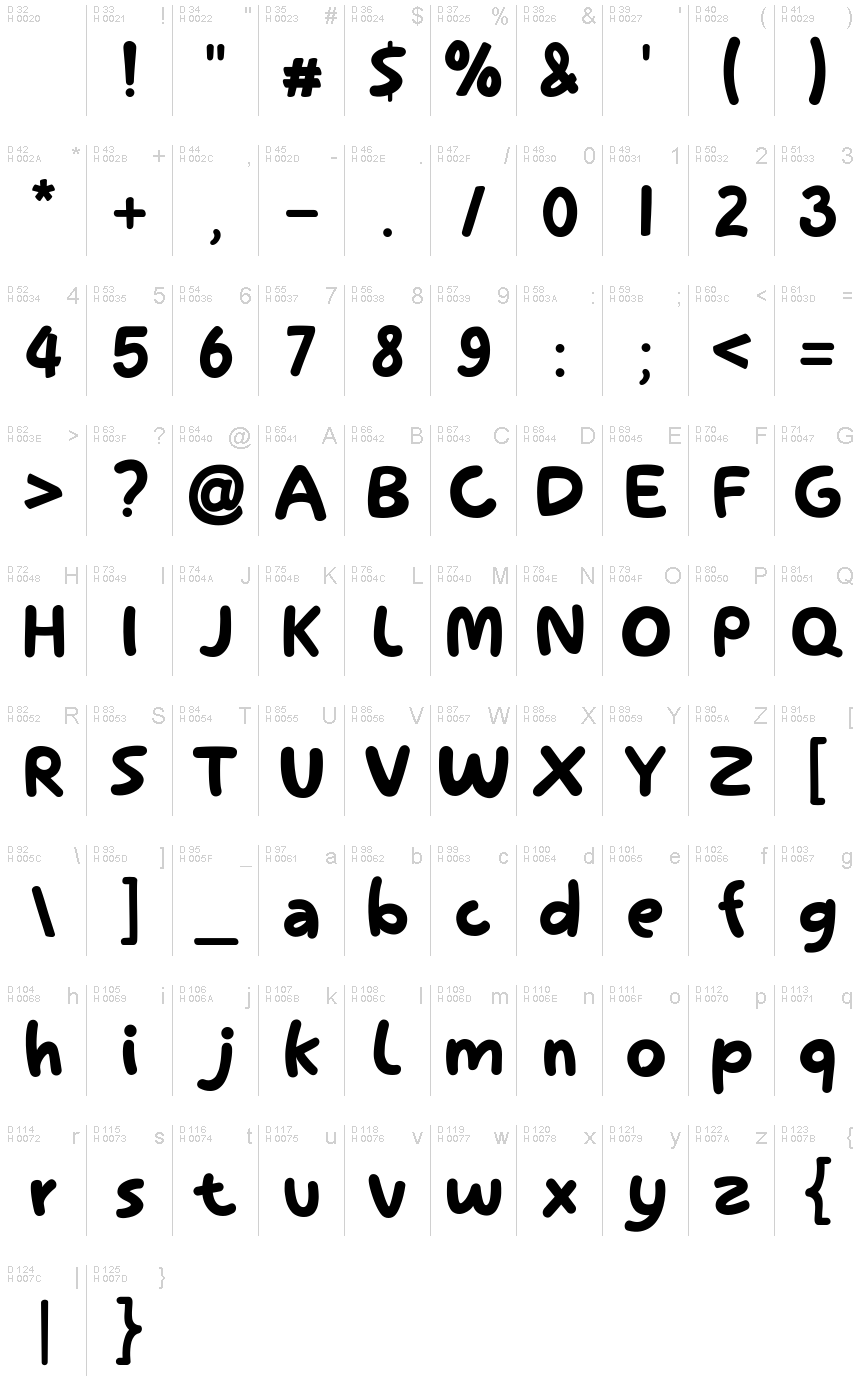
Kinder Child
Kinder Child, a playful and charming font designed by UI Creative, exudes a whimsical and youthful spirit. With its bold, cartoon-inspired strokes and a distinct sense of movement, this display font captivates the eye and evokes a cheerful, carefree atmosphere. The font's rounded, slightly irregular shapes and uneven letter spacing contribute to its endearing, handcrafted aesthetic, making it a delightful choice for projects targeting a young, vibrant audience.
The Kinder Child font lends itself beautifully to a variety of applications, from children's book covers and stationery to packaging design, advertisements, and even branding for educational institutions or toy companies. Its playful and approachable nature makes it an excellent selection for creating engaging, eye-catching content that resonates with a younger demographic. Whether used as a standalone element or combined with playful illustrations, the Kinder Child font has the power to bring a touch of joy and excitement to any creative project.